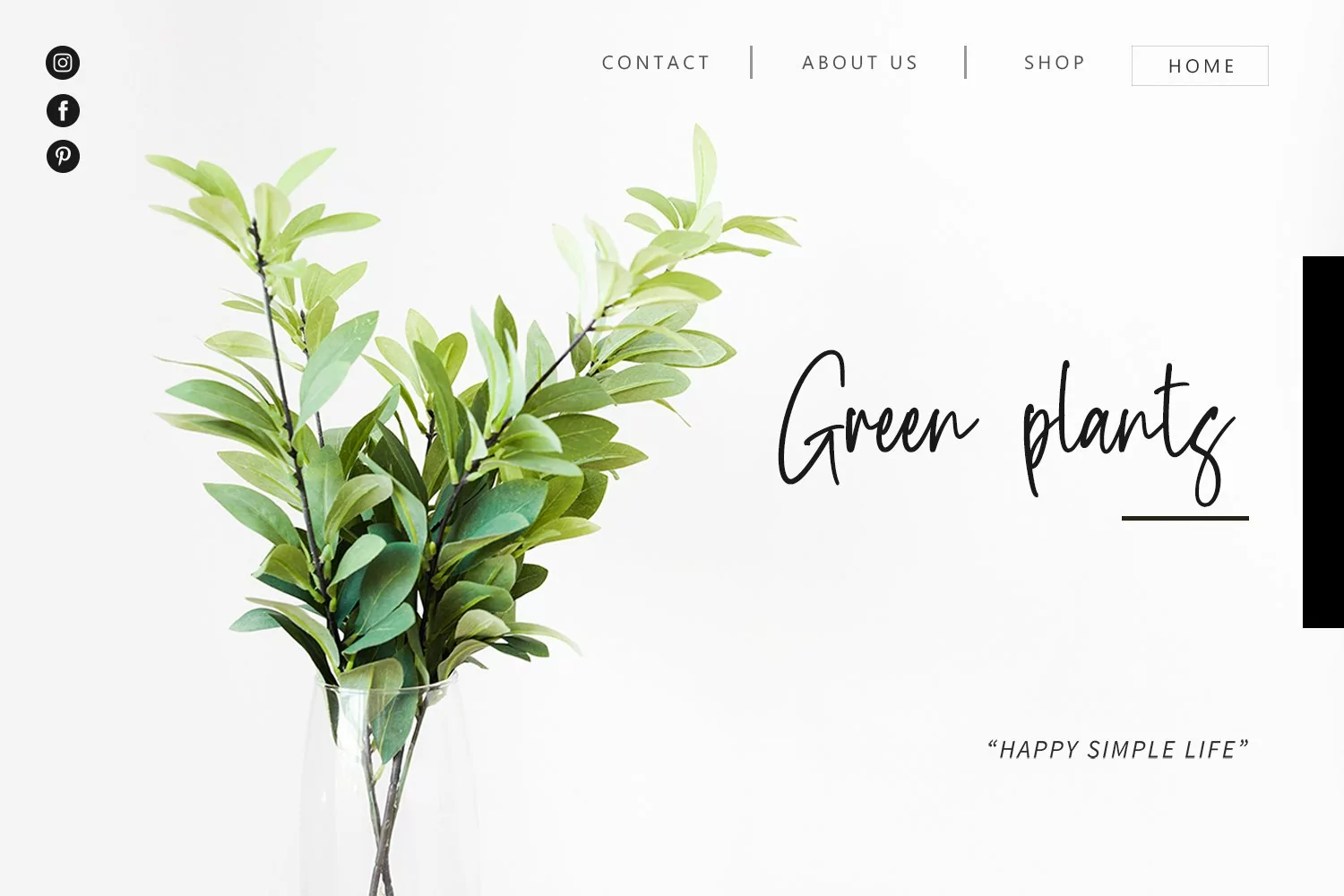
Backyard - Cool Calligraphy Font that contain lowercase, uppercase, symbol, and also support multi language. There’s a lot ligatures in this font. This Font also comes with ligatures, alternates and many more. this font suitable for fashion, branding, catalog and other design what you want.
Backyard